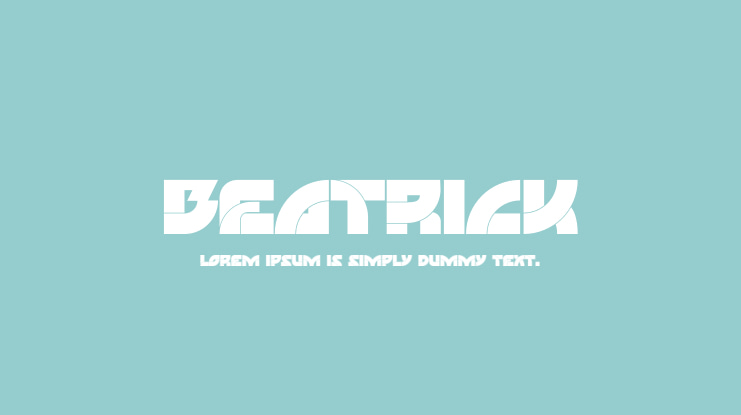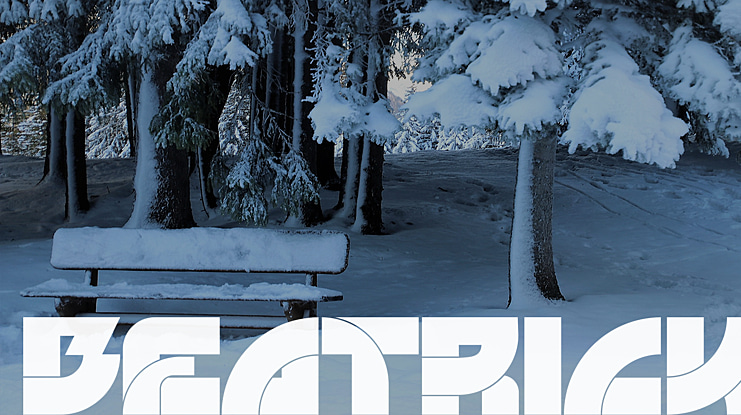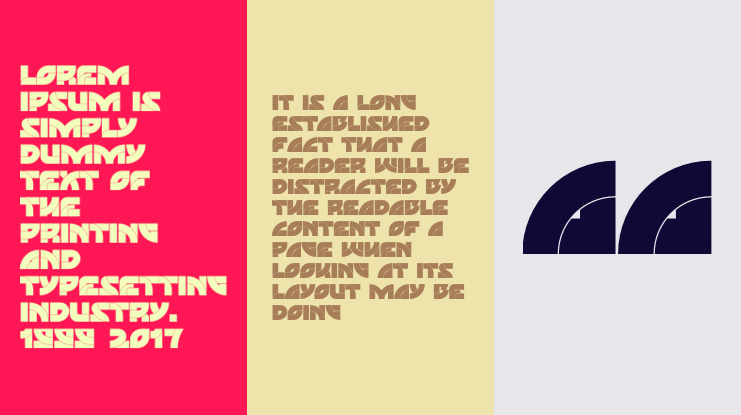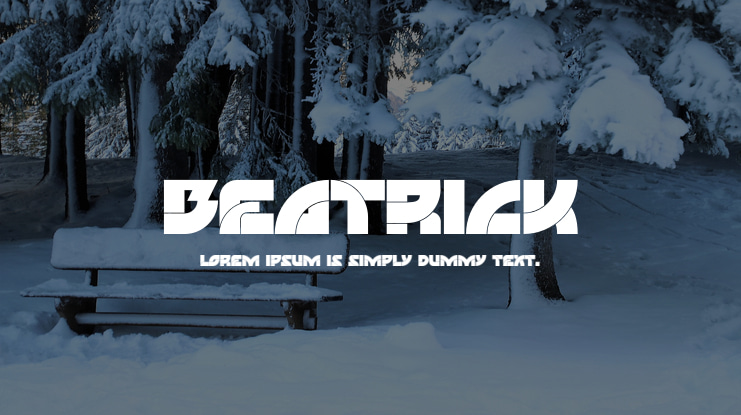
Beatrick Font
This is a bold and authentic display font which will bring each of your creative ideas to the highest level by Mevricks Studio! It contains uppercase, number and symbols. Beatrick font is perfect for science projects, sci-fi movies, e-sport advertising, posters, tech & gaming, logos, titles, packaging, web design, apps, brand identity, craft design, book title nd every other design which needs a customized touch.